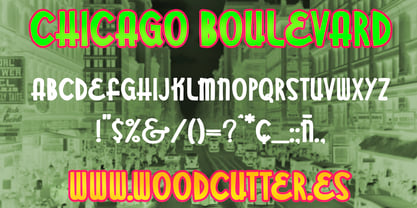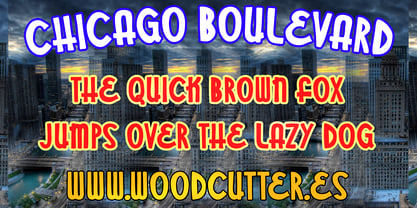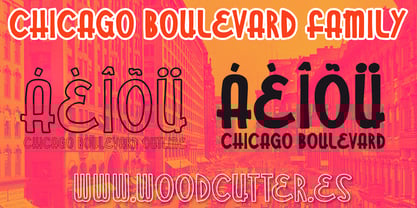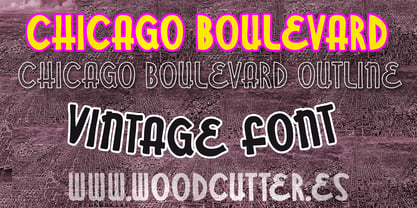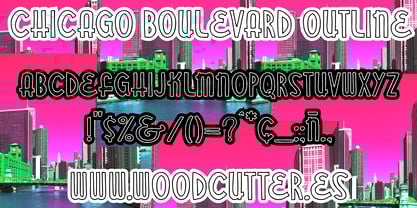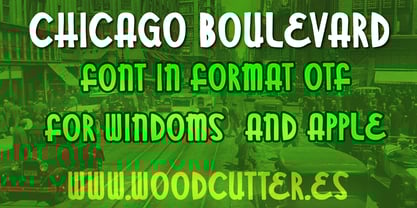
Chicago Boulevard
Die Schriftfamilie Chicago Boulevard wurde von Jordi Manero entworfen und von Woodcutter veröffentlicht. Chicago Boulevard enthält 2 Stile und Familienpaketoptionen.
The “Chicago Boulevard” type family consists of two all-caps fonts with accents, paying tribute to the retro vintage aesthetic with a raw, nostalgic urban feel. Chicago Boulevard features bold, solid letters with slightly irregular lines, evoking the hand-painted signs of old neighborhood bars or vintage theater marquees. The worn texture gives it a gritty charm that merges street toughness with the faded elegance of a bygone era.
Chicago Boulevard Outline shares the same letter structure, but each glyph is rendered in outline form only. This version offers visual lightness and flexibility, ideal for layered designs, background effects, or striking typographic compositions with a retro twist. Its imperfect lines bring depth and character to any layout.
Both fonts complement each other perfectly, enabling designers to create dynamic visual hierarchies between headlines and secondary elements. “Chicago Boulevard” is ideal for music artwork, alternative branding, posters, or any project with a bold yet nostalgic spirit. It’s a type family with soul — a gritty postcard from the past still echoing today.